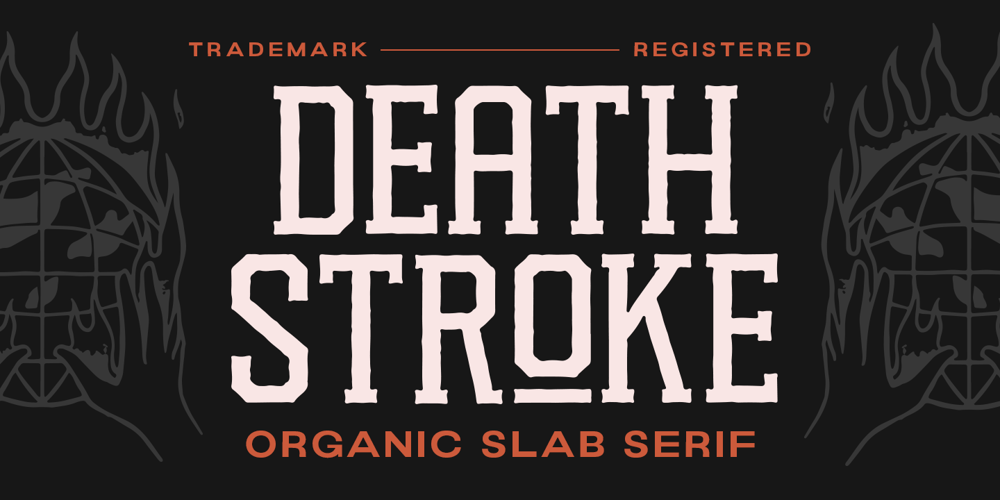
Deathstroke Font Family was designed by Hendry Juanda and published by Letterhend. Deathstroke contains 1 styles and family package options. Death Stroke is a organic slab serif typeface which is purposely made for headline, display or logotype. It comes with illustration & logo extras. This type of font perfectly made to be applied especially in logo, and the other various formal forms such as invitations, labels, logos, magazines, books, greeting / wedding cards, packaging, fashion, make up, stationery, novels, labels or any type of advertising purpose.Features :Uppercase & lowercaseNumbers and punctuationIllustration extrasAlternates & ligaturesMultilingualPUA encodedWe highly recommend using a program that supports OpenType features and Glyphs panels like many of Adobe apps and Corel Draw, so you can see and access all Glyph variations.PLEASE READ THIS:To use alternate charactter/swash you have to use opentype. For accessing opentype feature, kindly check this link letterhend.com/tutorials/using-opentype-feature-in-any-software/Email us to letterhend@gmail.com if you need something! Happy Designing!